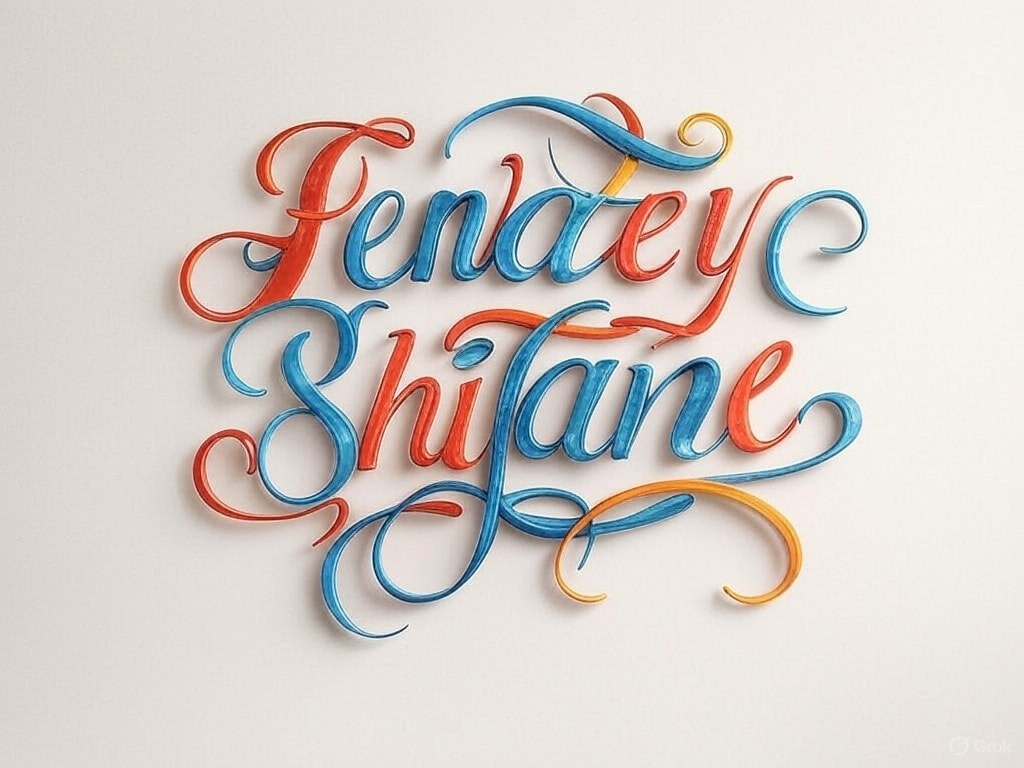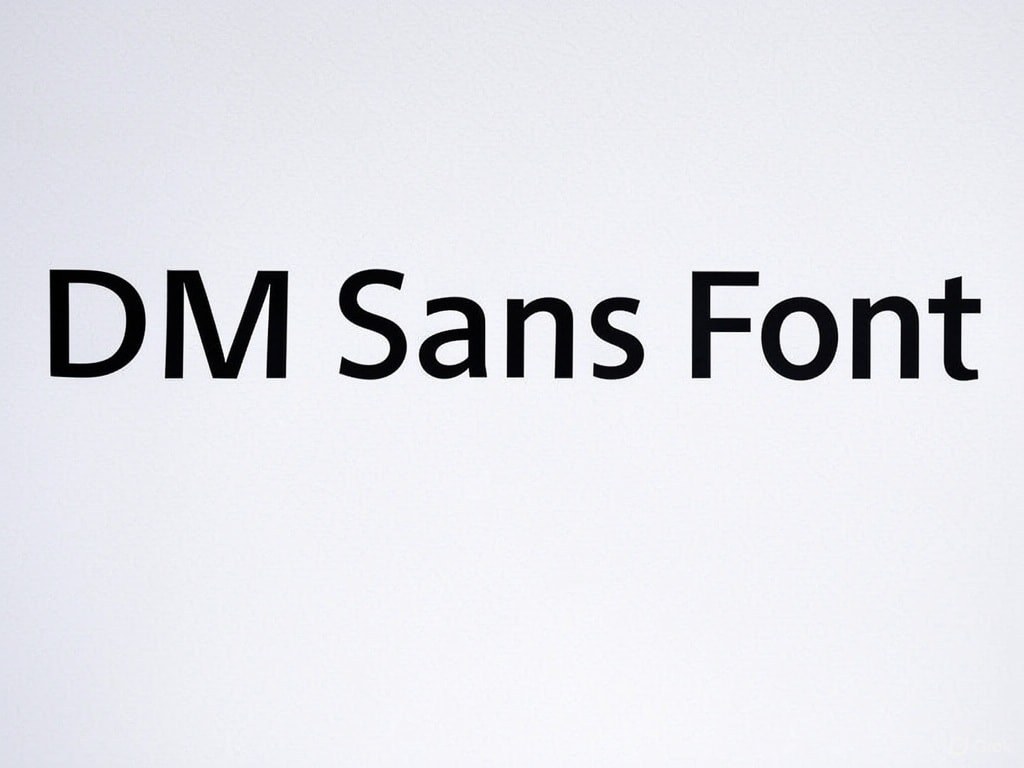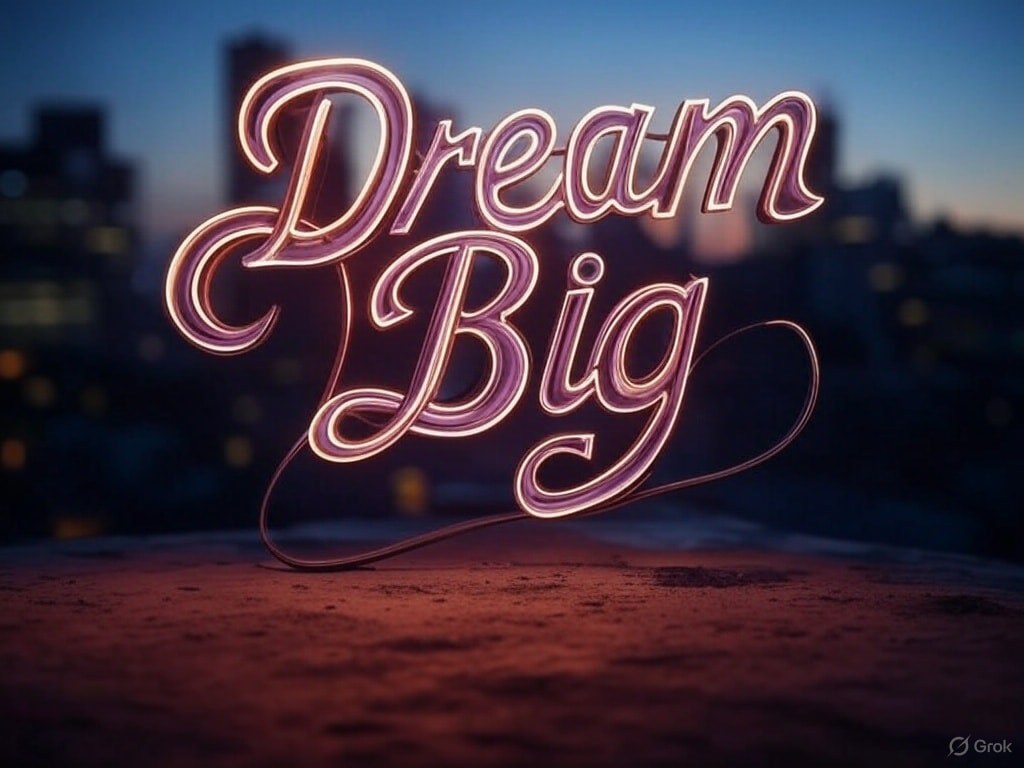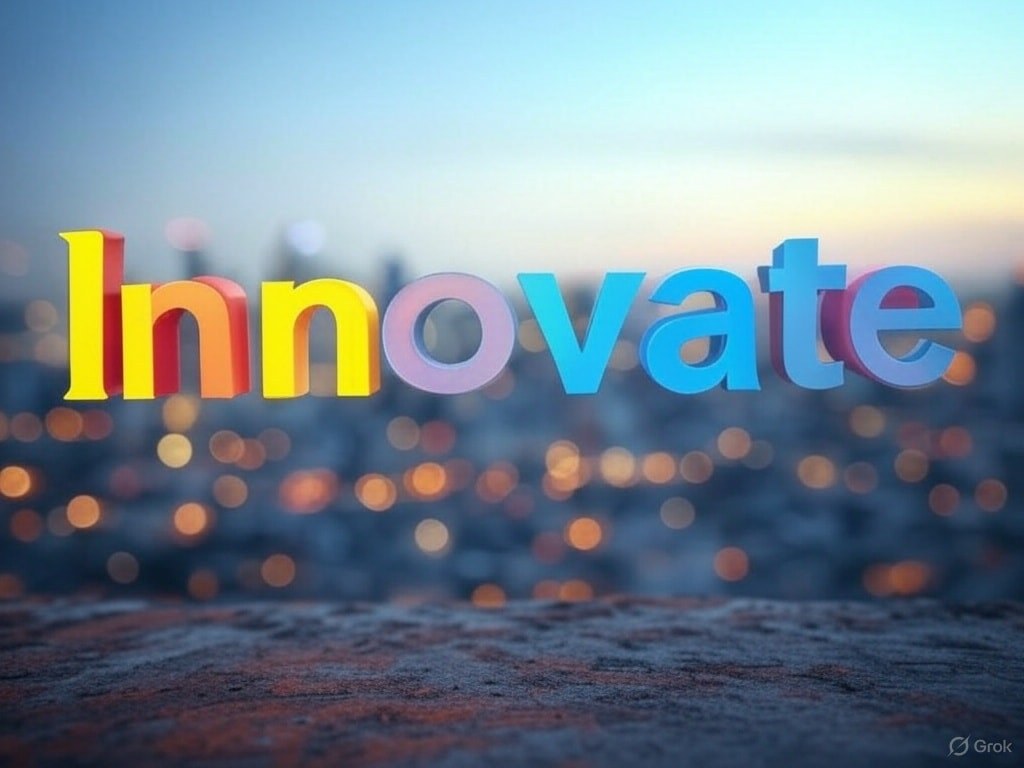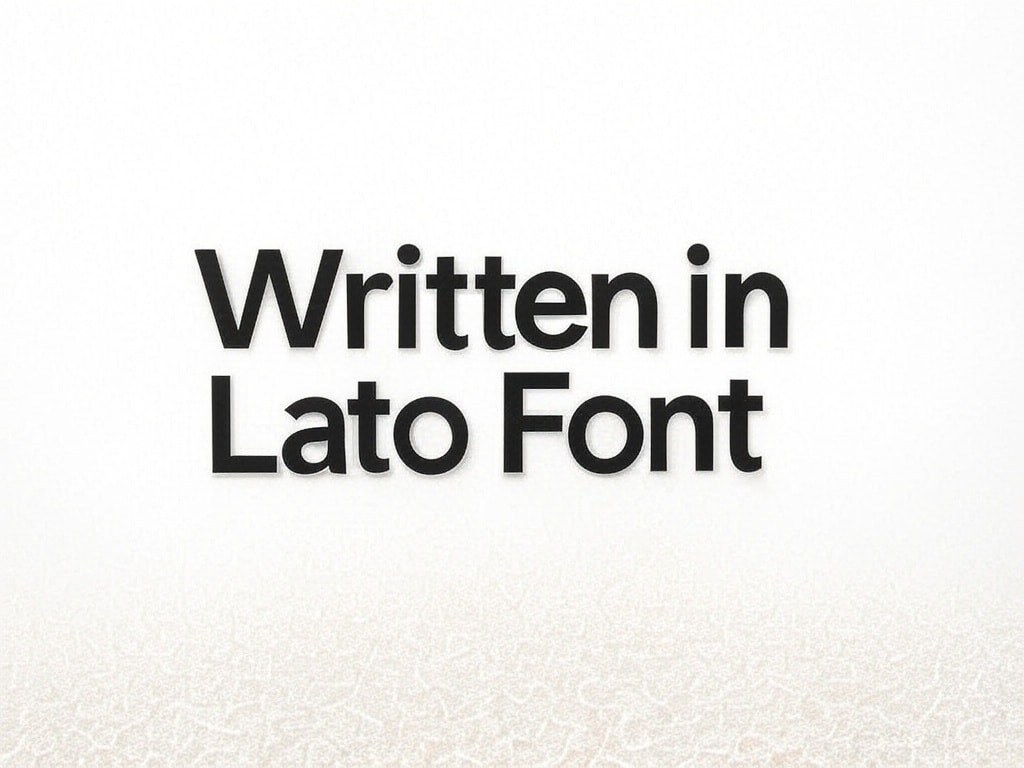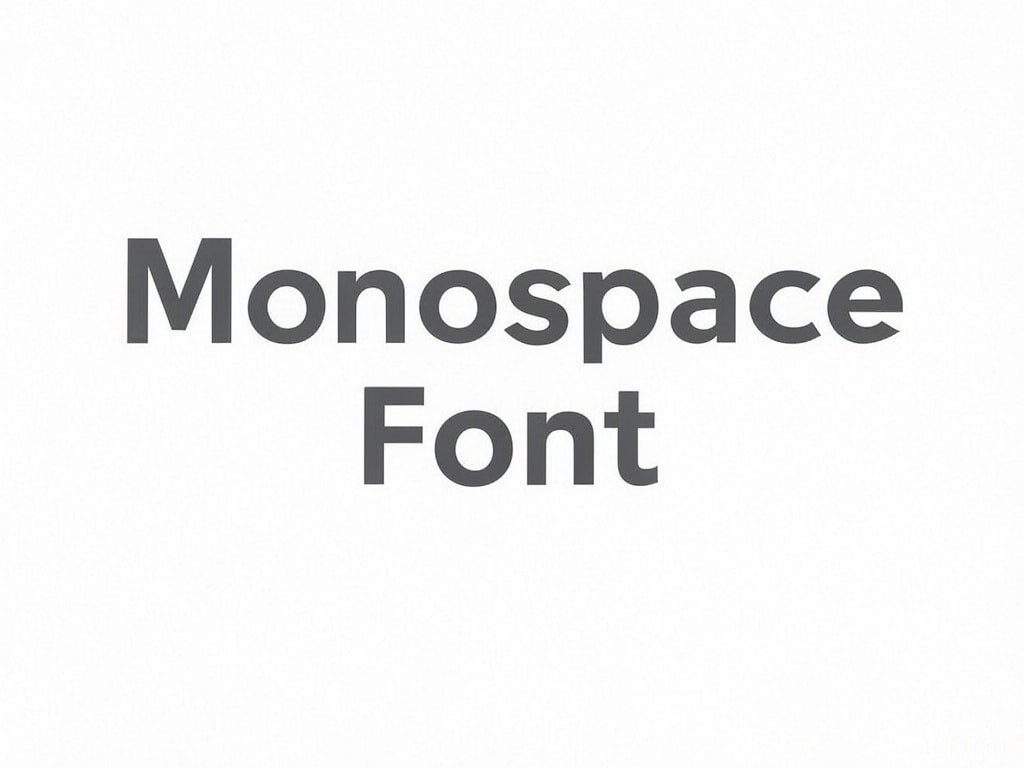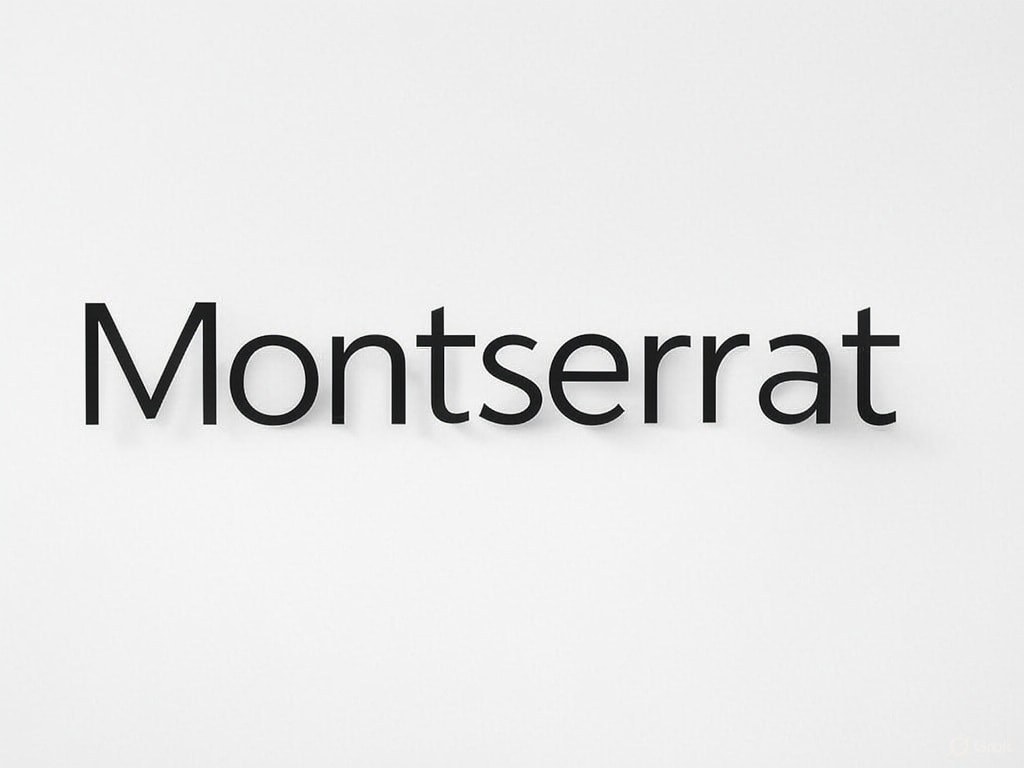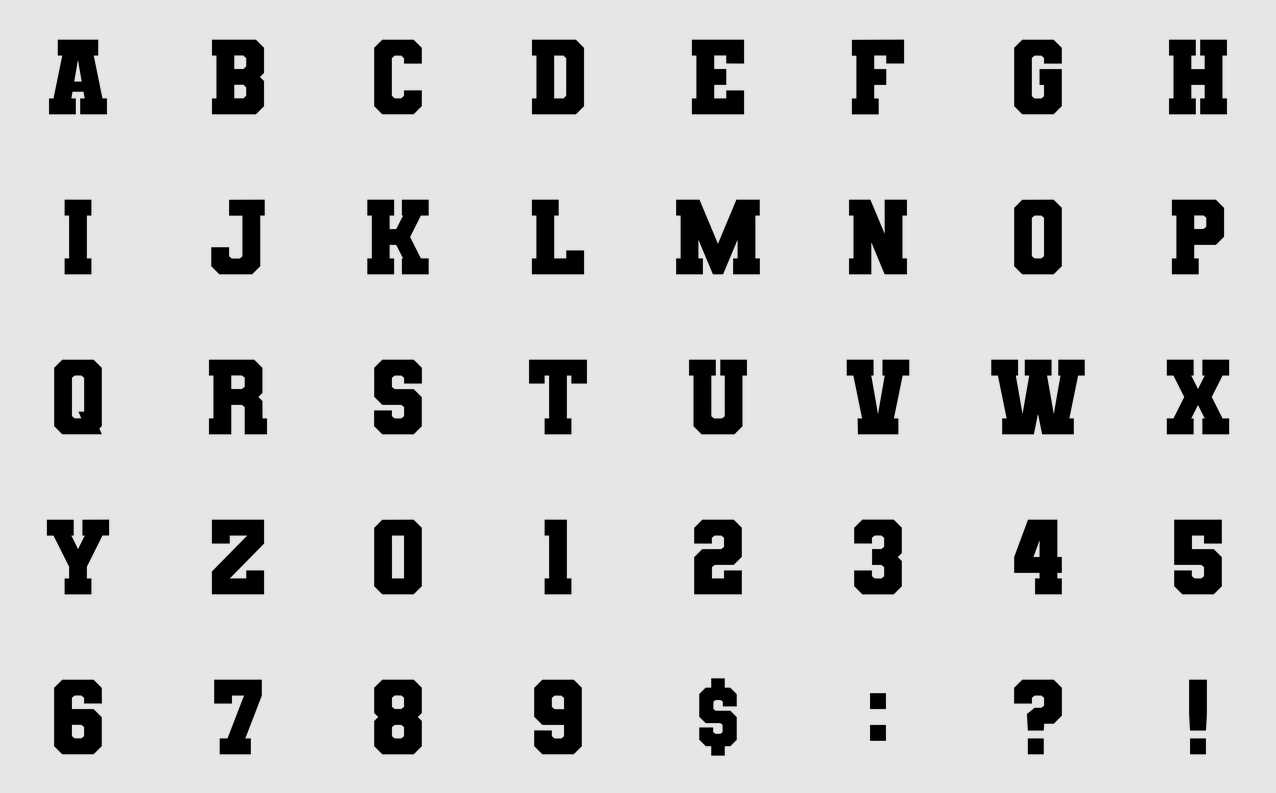
27 Best Fonts for Websites (+ How to Choose & Pair Them)
Choosing the best fonts for websites is crucial for a captivating design. These fonts convey your brand’s identity, enhance readability, and shape the user experience.
This guide explores the best website fonts. We’ll provide practical tips for selecting unique fonts. These fonts will elevate your design and engage your target audience.
Takeaways
• Typography encompasses font selection, size, spacing, and color.
• Choosing the right typography can help convey your brand message.
• Limit your website to 2-3 fonts to maintain visual coherence and optimize load speed.
• There are five primary font families: serif, sans serif, script, monospace, and slab serif.
• When choosing fonts, prioritize readability and cross-device compatibility.
• Font pairing follows the principle of contrast and harmony, creating balance and impact.
• Web-safe fonts ensure consistent rendering across different devices and platforms.
• Appropriate font sizes (16-20px for body text) enhance readability and accessibility.
Understanding Website Typography Basics
Typography plays a crucial role in web design. Hence, understanding the basics helps you choose the best fonts. These fonts seamlessly blend in and enhance readability. Let’s delve into some of the basics to explore different web fonts.
What Is Typography?
Typography involves organizing type to make written language easy to read and appealing. It goes beyond simply choosing the right font. Every aspect is vital, from font size to spacing between letters, lines, and paragraphs.
Understanding Website Typography Basics
Outstanding typography balances form and function. Ensure to use a specific typography system to create harmony across all text elements.
Font vs. Typeface: What’s the Difference?
A typeface is the complete design of letterforms that share consistent visual features. Good examples include Arial or Times New Roman. A font is a specific change of that typeface. This includes details such as size, regular weight, and style, such as Arial Bold 12pt.
A specific kind of typeface.
This distinction is important because you will select typefaces that match your brand. Plus, you’ll need to apply specific fonts to different elements to create visual flow.
Font vs. Typeface: What’s the Difference?
Types of Website Fonts
Different fonts have elegant lines and unique features that you can tailor to suit your web design. Let’s explore some font types below.
Understanding Website Typography Basics
Serif Fonts
Serif fonts have small decorative lines that attach to the ends of letters. These serifs create a traditional and authoritative feel. Newspapers and academic publications often use serif. Great examples include Times New Roman, Georgia, and Bodoni.
On websites, serif fonts show reliability and tradition. They’re excellent for businesses wanting to express stability. These include law firms, financial institutions, or academic organizations.
Sans Serif Fonts
Sans Serif Font.
Sans serif fonts lack the decorative strokes at the ends of letters. This creates a clean, modern feel that appears simple. Popular examples include Helvetica, Arial, and Montserrat.
These fonts dominate digital design because their simple forms render more clearly on PC or mobile screens. Their simple appearance suits modern brands that aim to appear approachable and forward-thinking.
Script Fonts
A script font mimics handwriting or calligraphy with flowing, connecting letterforms. They add personality and a human touch to your design. This ranges from casual styles to elegant, formal scripts.
Although visually appealing, script fonts have readability challenges. It’s best to use them for headlines or short phrases. This way, their distinct character can shine without affecting readability.
Monospace Fonts
Monospace fonts.
In monospace fonts, every character occupies the same horizontal space. This creates a distinctive, technical appearance suggestive of typewriters and early computers.
This uniform spacing makes monospace fonts ideal for displaying code or technical data. Examples include Courier, Roboto Mono, and IBM Plex Mono.
Slab Serif Fonts
Slab serifs combine the structure of serif fonts with thicker, noticeable serifs. These fonts show strength and confidence, making them eye-catching. Originally designed for advertisements, slab serifs work well for headlines on websites. Good examples include Rockwell, Courier, and Arvo.